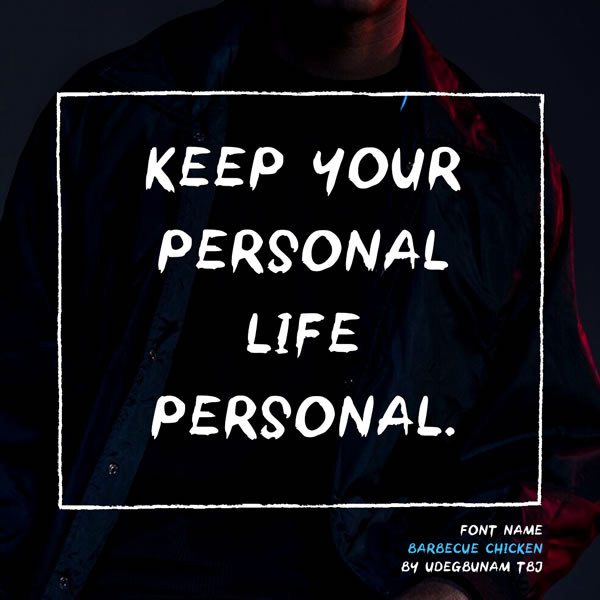
Barbecue Chicken Font
About Barbecue Chicken Font
Barbecue Chicken is a unique typeface.
It can be used for various purposes such as mugs, headings, logos, invitations, newspapers, and much more!